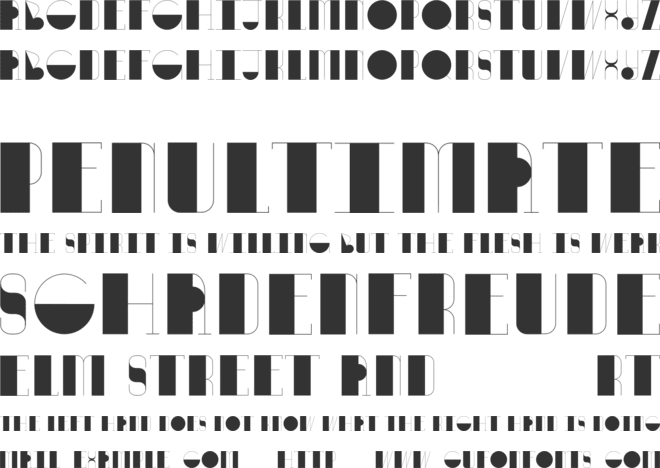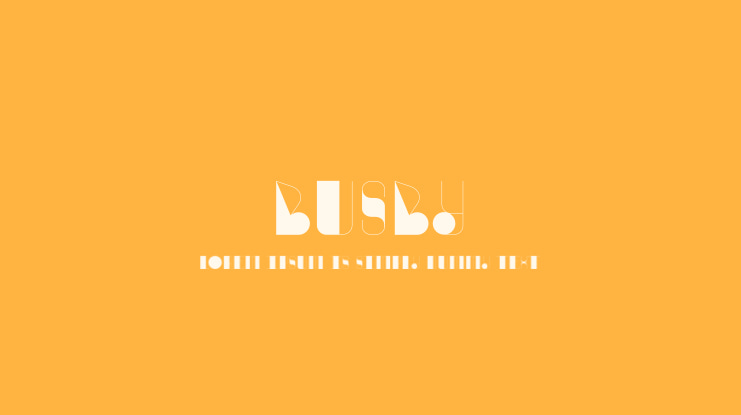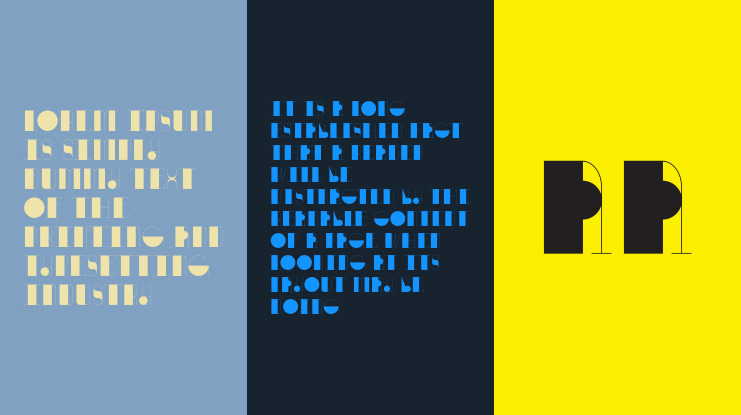
Busby Font
Introducing Busby, an all-new Art Deco Font!
Busby is here just in time for the new Twenties: the 2020s. Inspired by the brass light fixtures and bold clean lines of the Art Deco era, Busby is a font available in 4 weights: Regular, Light, Condensed, and Condensed Light.
Busby is great for a variety of applications- from posters and art with a South Beach Miami feeling to super trendy Millennial appealing fashion products and graphic design with an edge of old school glamour.